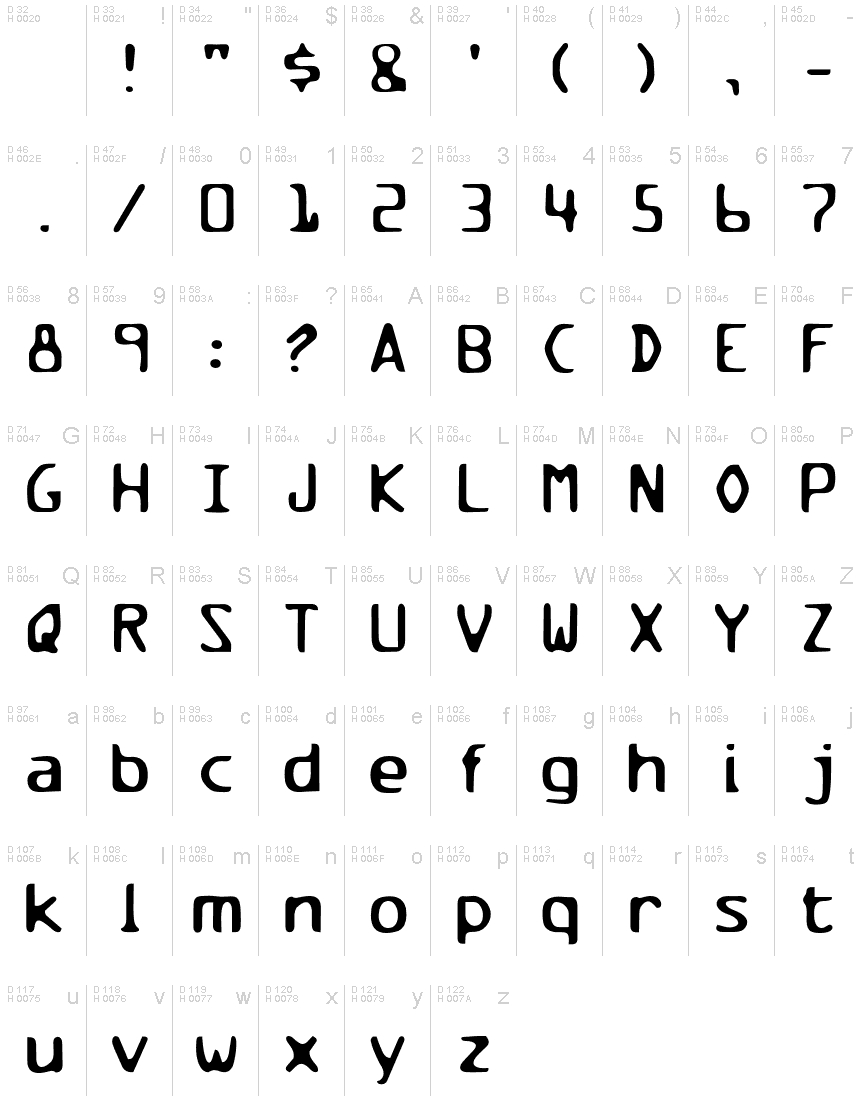
Milesandmilesofhappysmil
Miles and Miles of Happy Smiles is a display font designed by Peridot Kitchen-Sink that boasts an eroded style, creating a unique vintage look. This semi-bold font is perfect for projects that require a playful and fun vibe, such as children's book covers, greeting cards, or party invitations. Its boldness also makes it ideal for branding materials like logos, posters or signage. The eroded style adds character to any design and can be used to create an authentic retro feel. With Miles and Miles of Happy Smiles, your design projects will definitely stand out from the crowd!